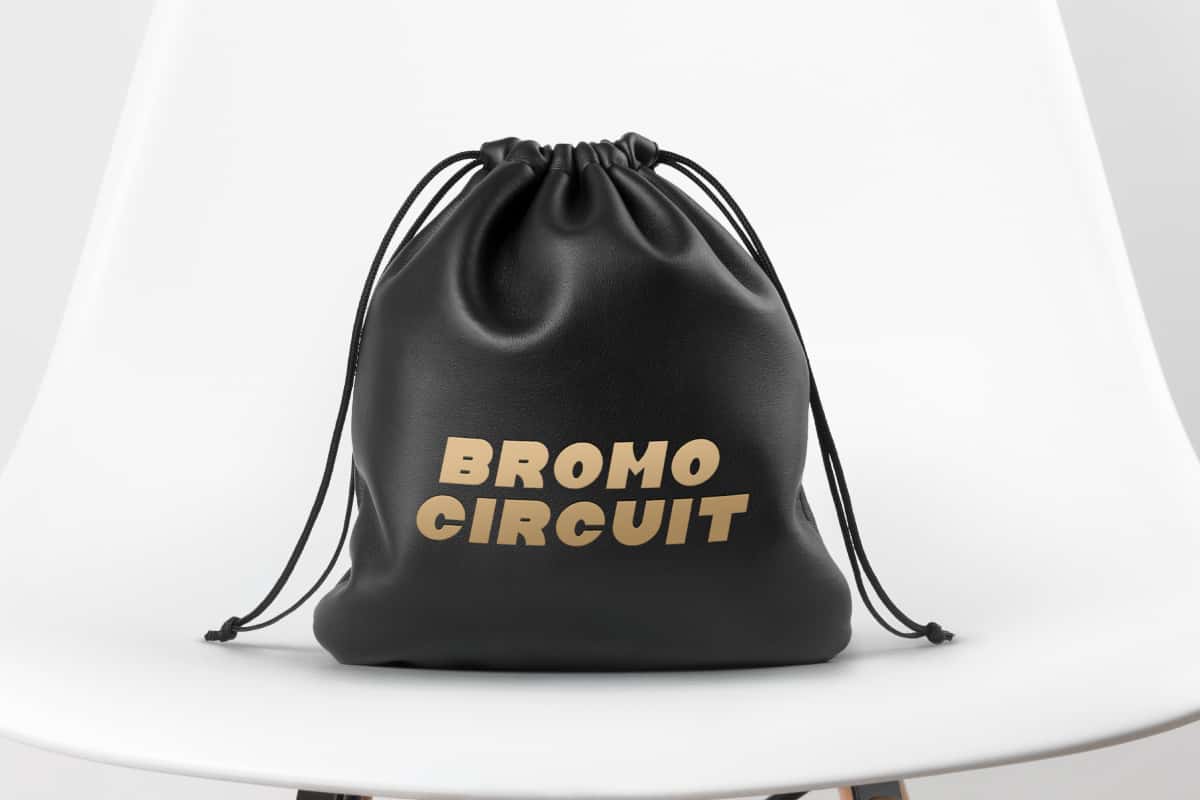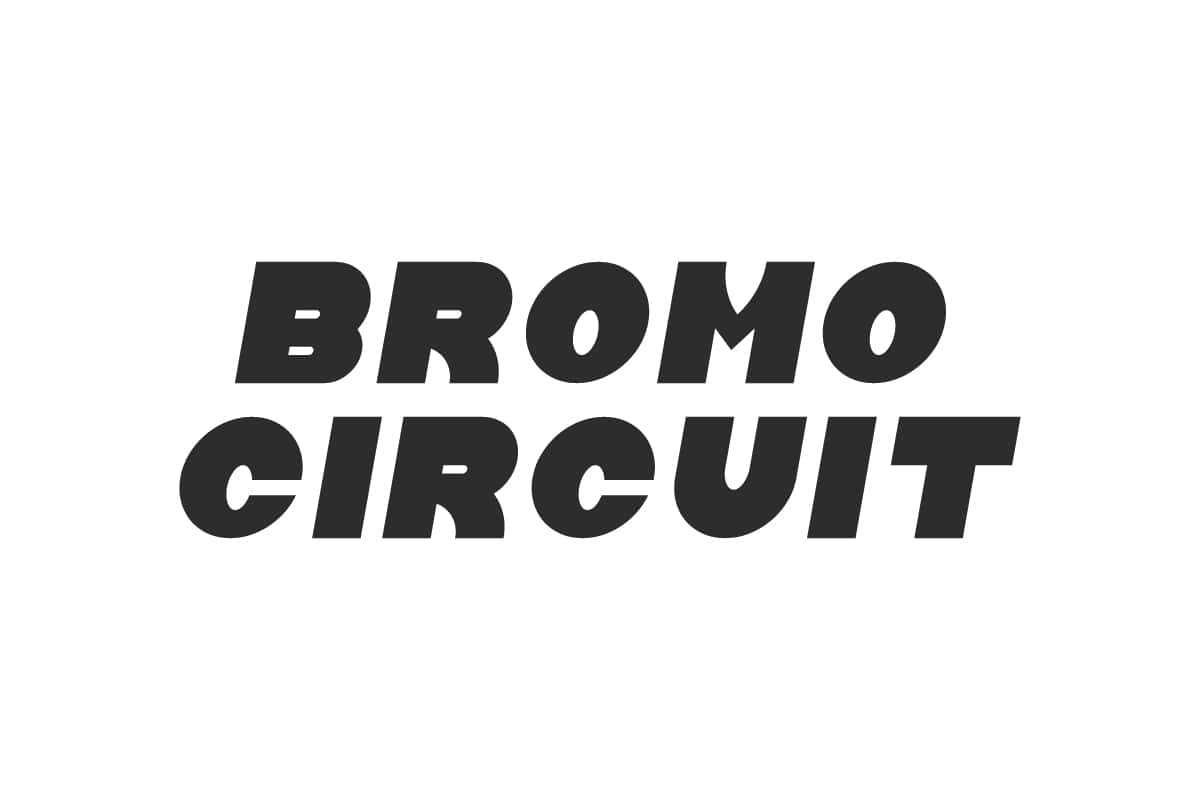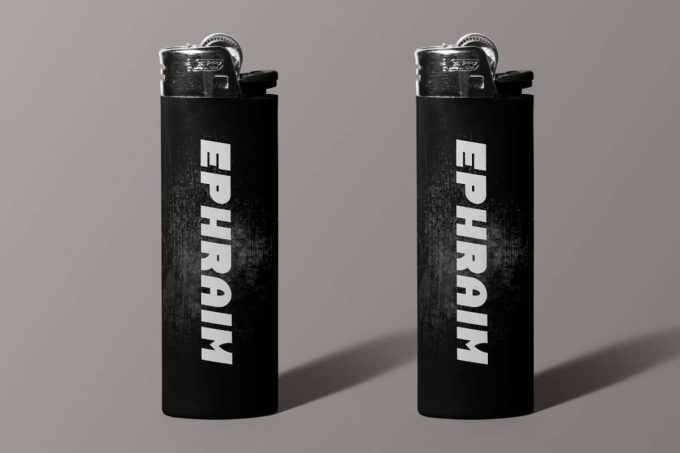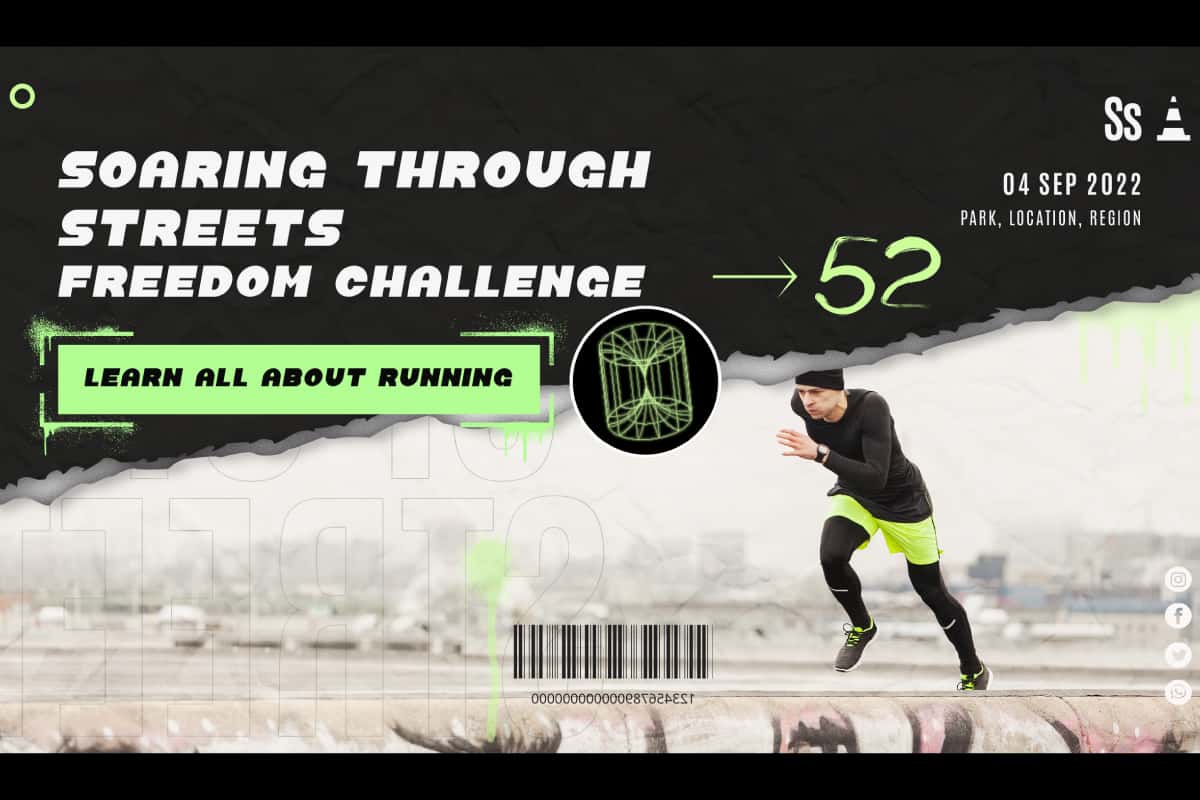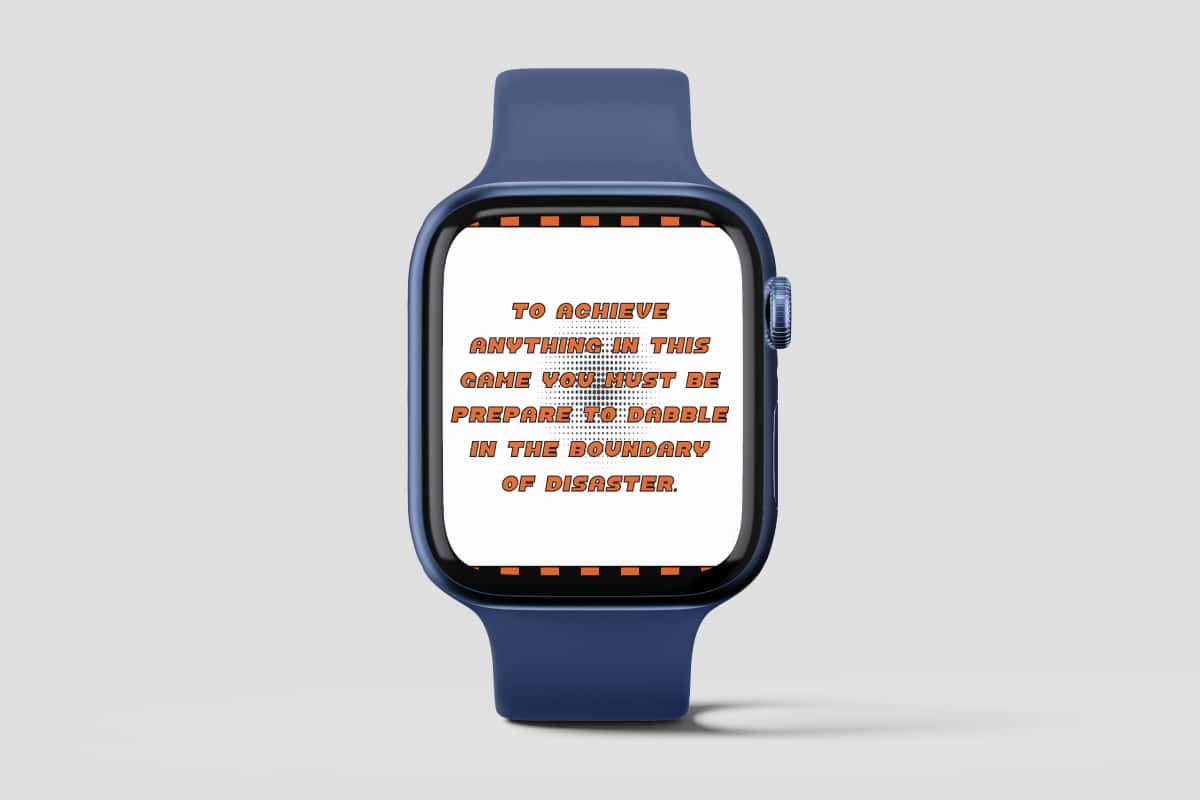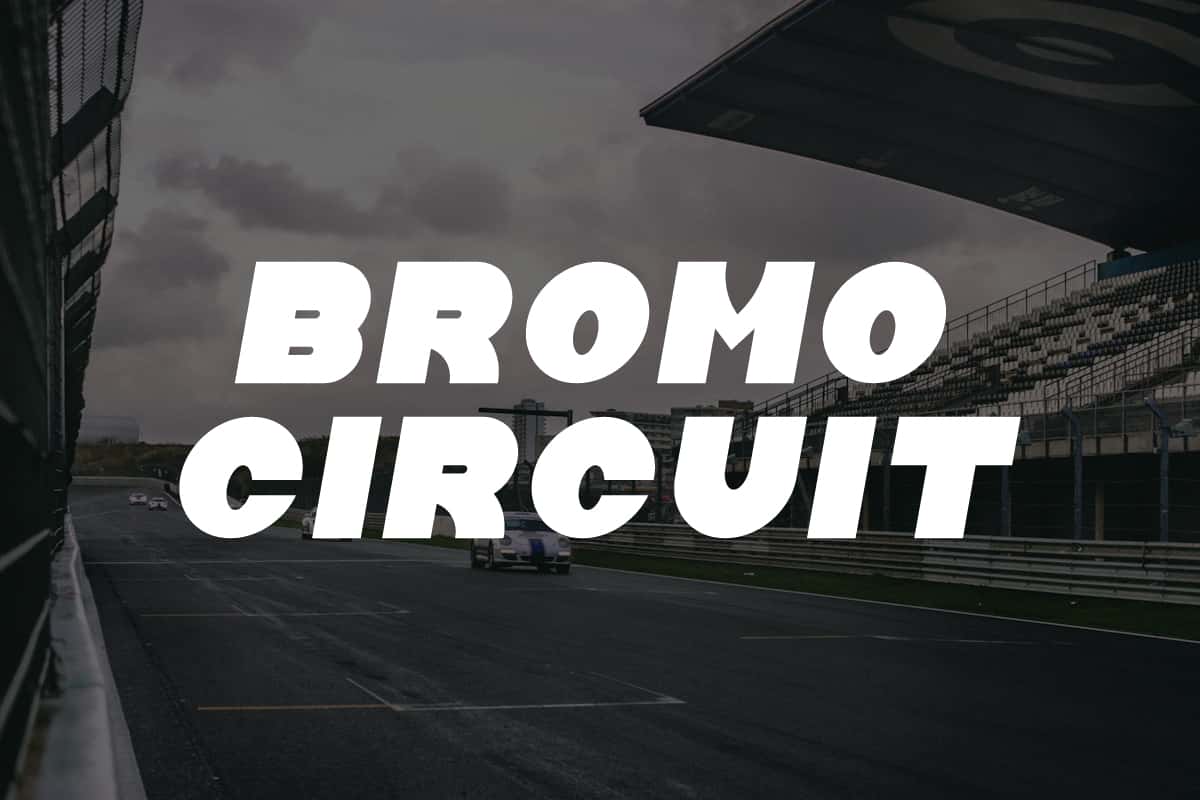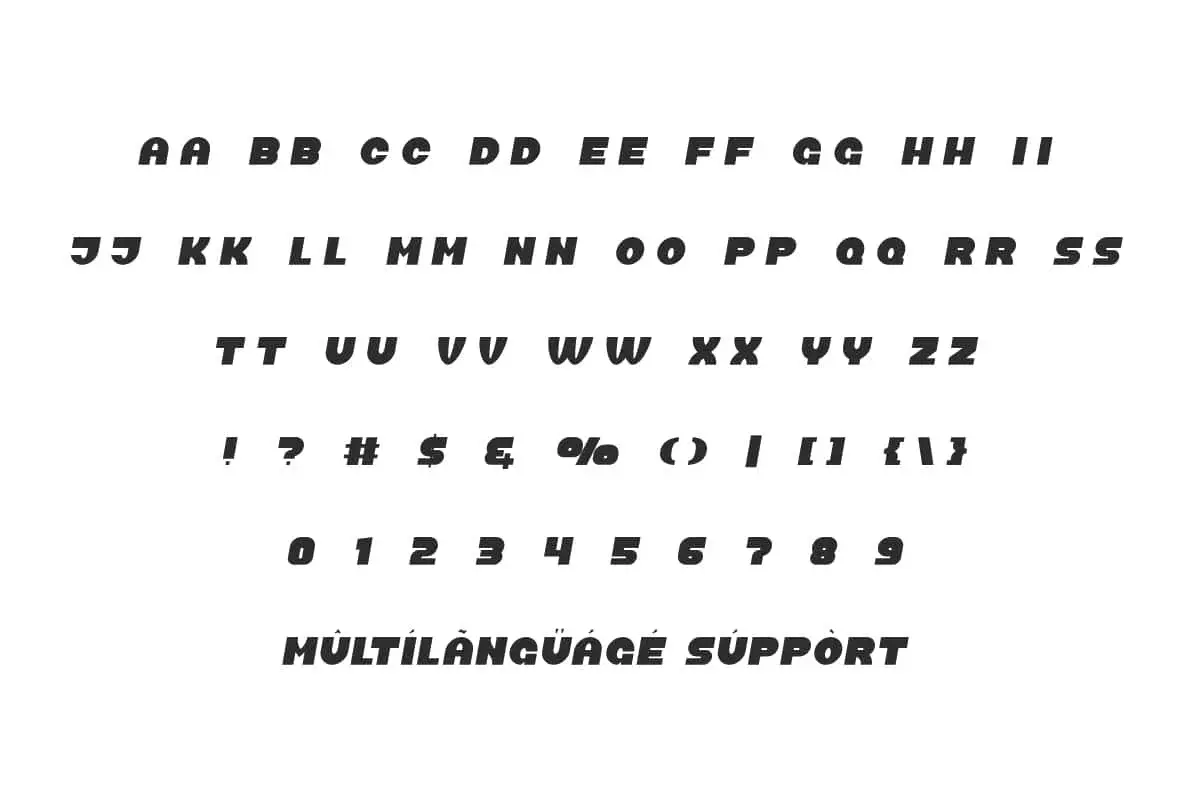
Bromo Circuit Font
Bromo Circuit Font is an energetic sporty display font, perfect for racing themes, that boasts both powerful boldness and a truly distinctive character.
Bromo Circuit Font is a sporty racing-inspired and undeniably fun display font, distinguished by its inherent boldness and truly unique character. This font perfect for accessories and merchandise, clothing brand, creative work, fitness center, graphic design, photography, racing, and much more.
Bromo Circuit Font includes full set of ALL CAPS for Uppercase and Lowercase Basic Characters, Numbers, Punctuation and Symbols. This bold font is a popular pick for racing themes, designed to powerfully capture the viewer’s attention. Perfect for branding logo, digital blog, packaging, printed materials, website, etc.